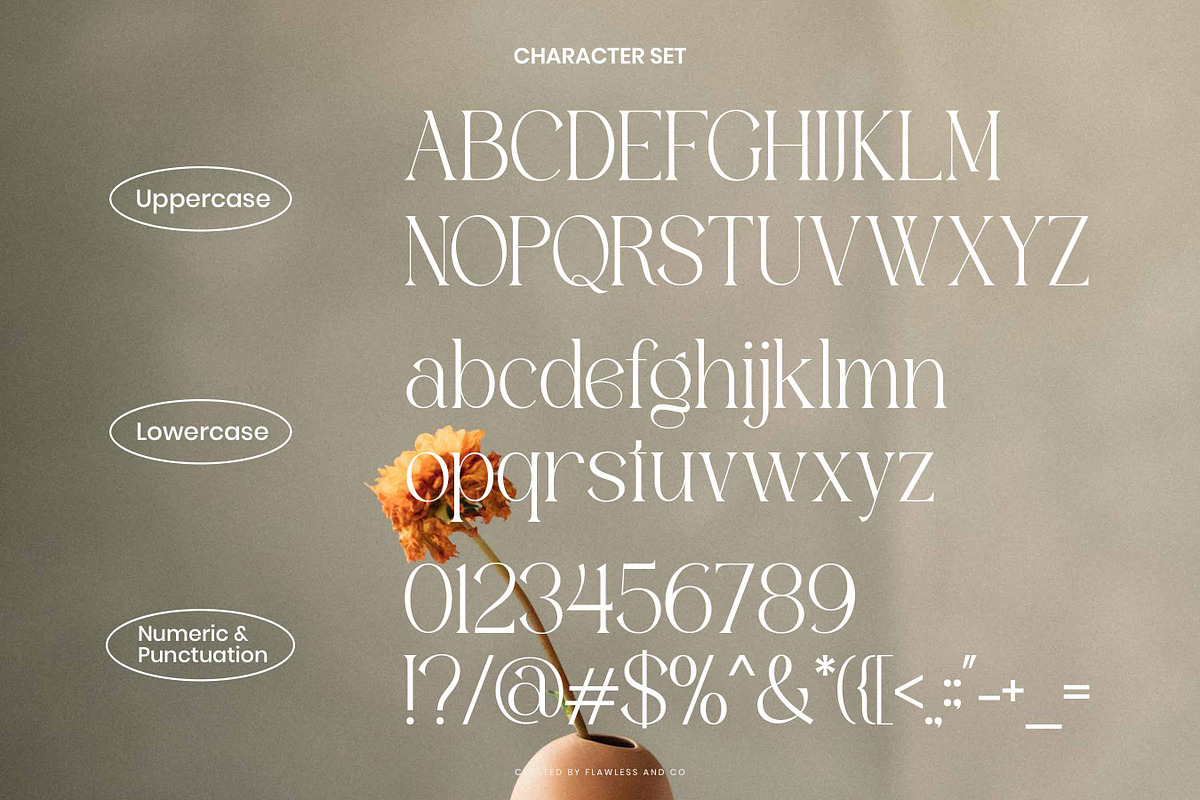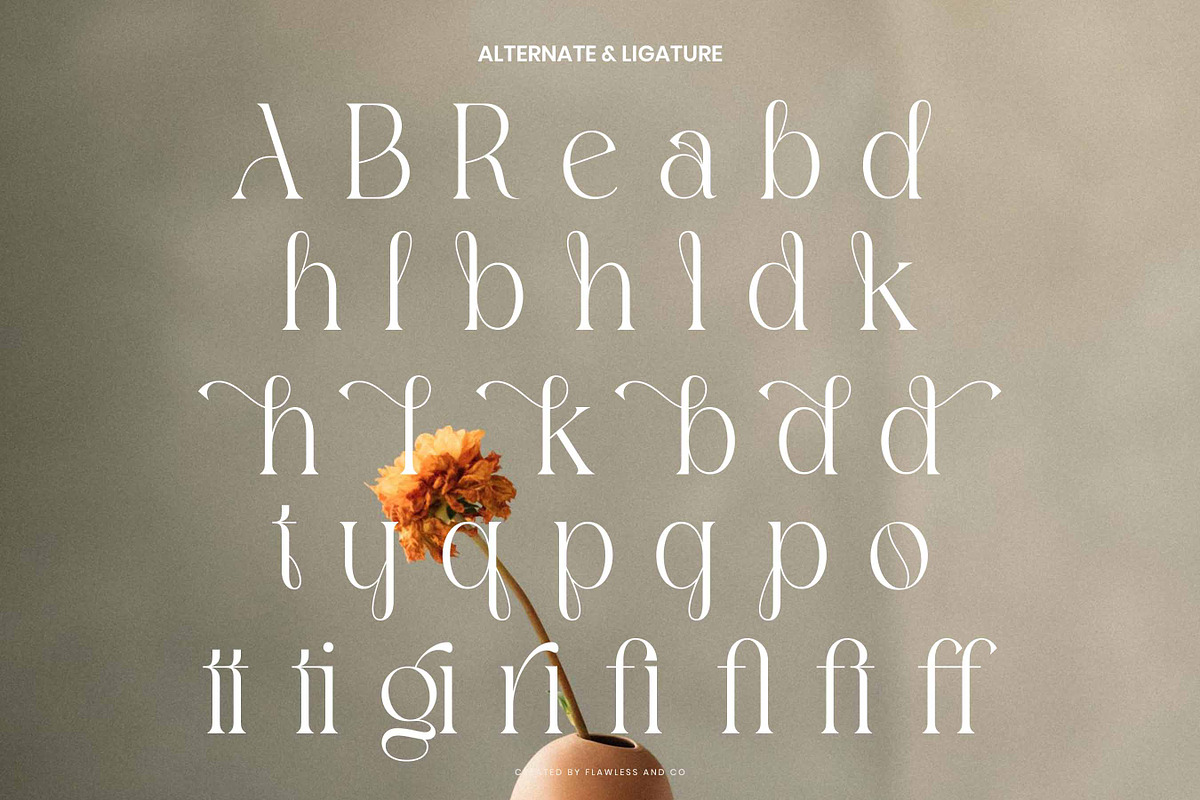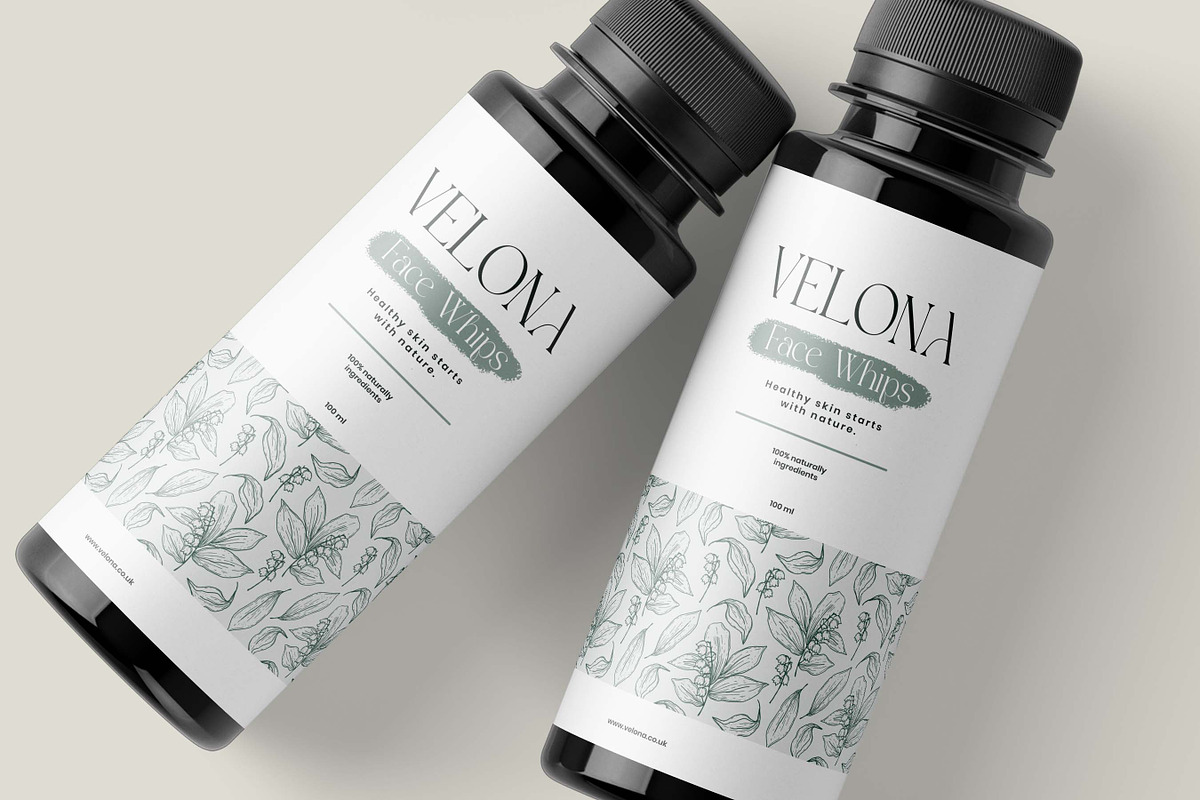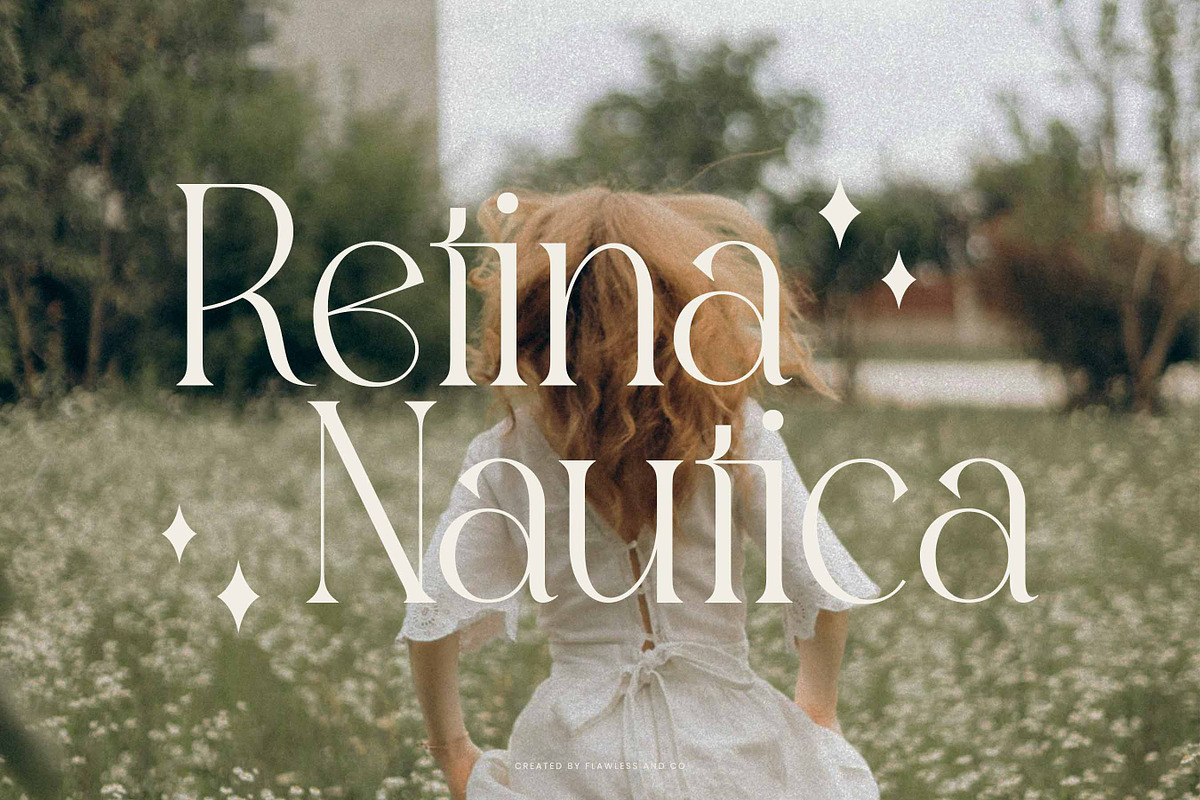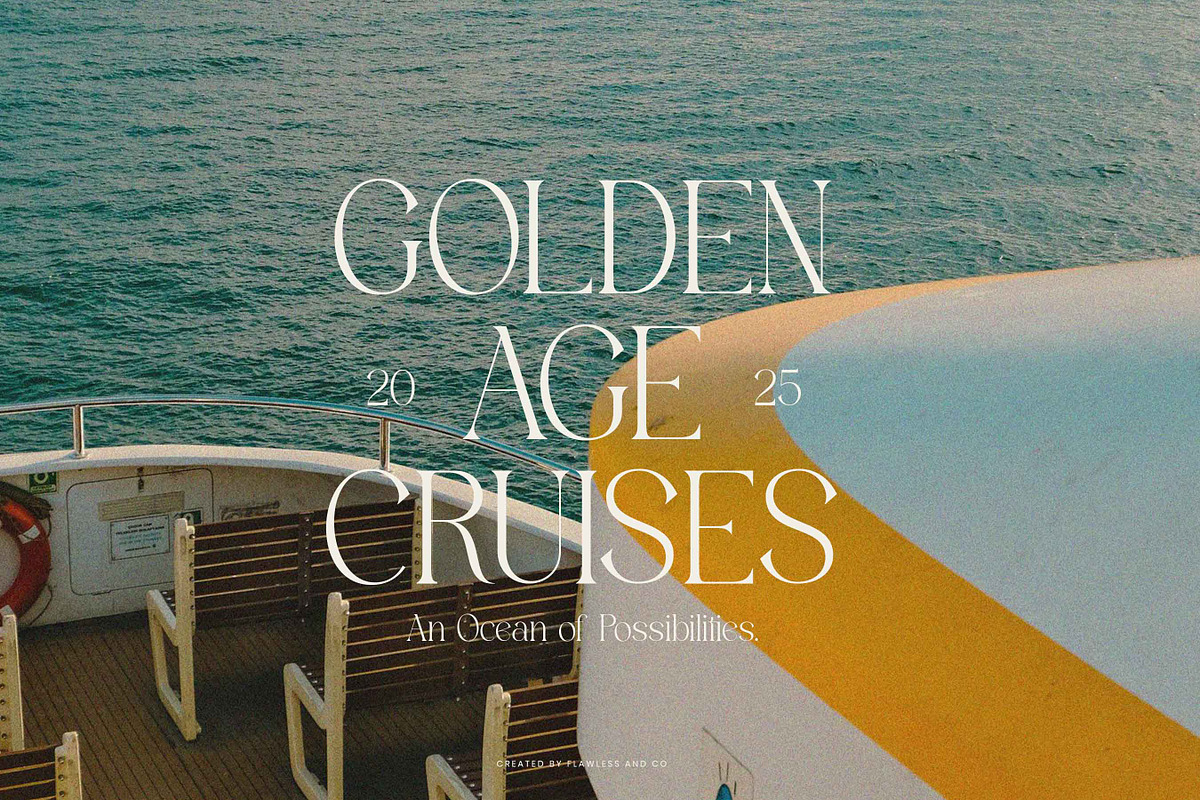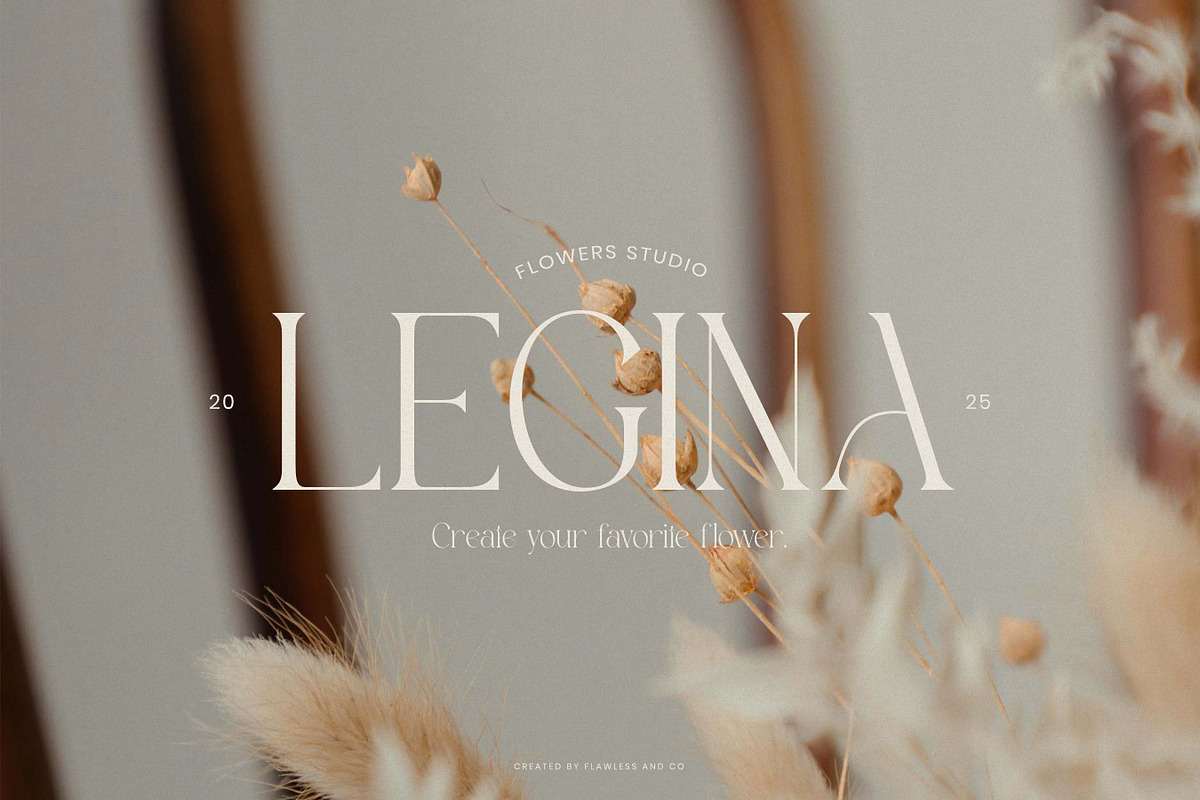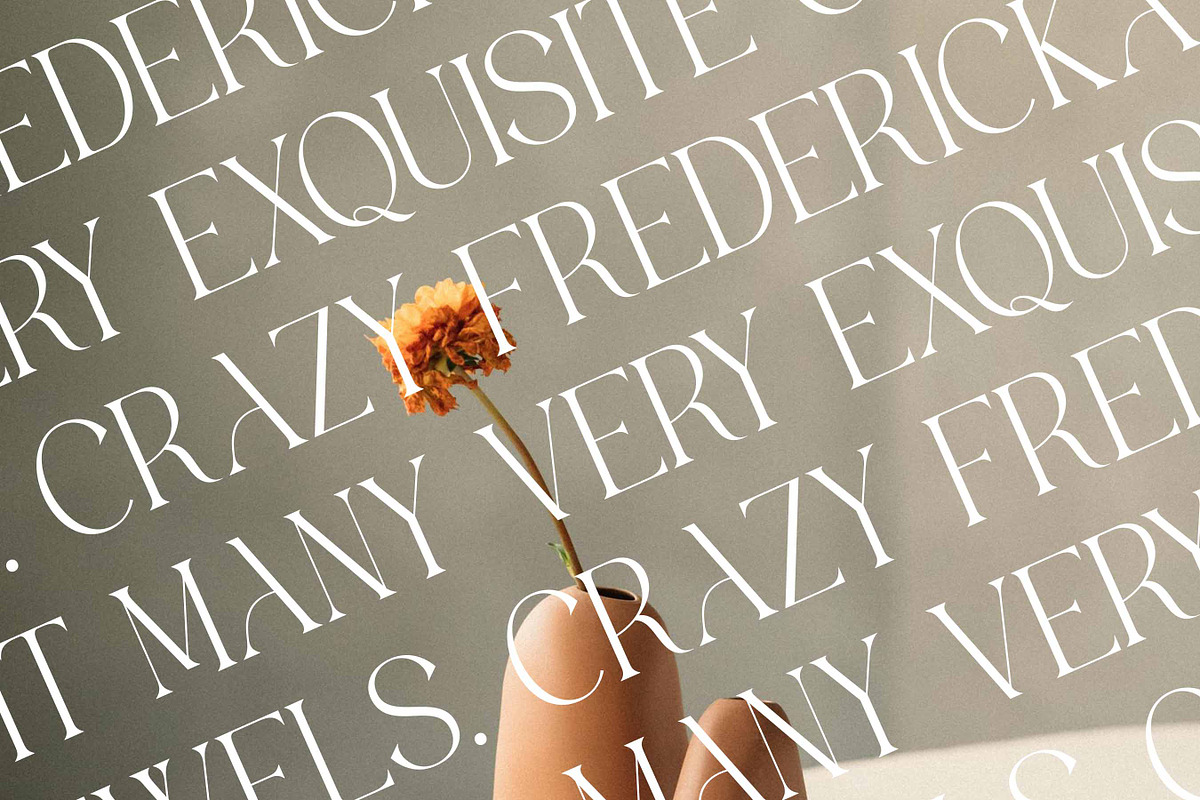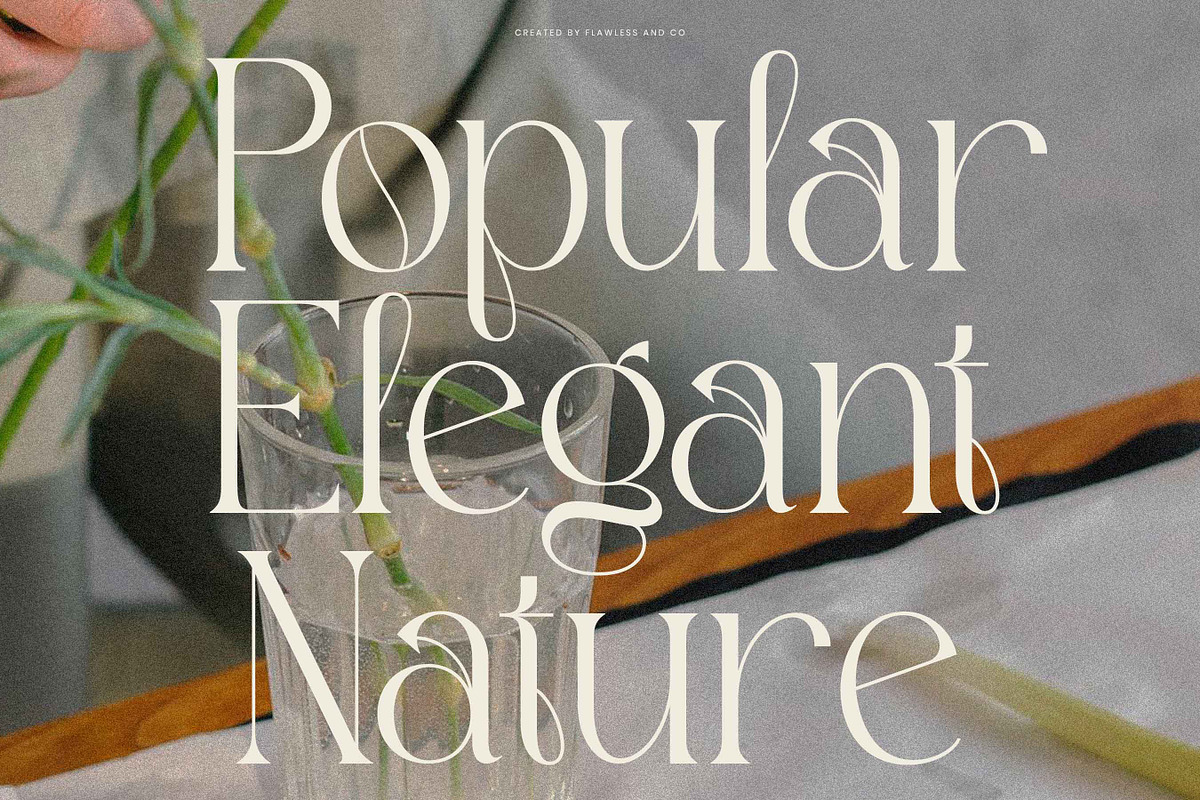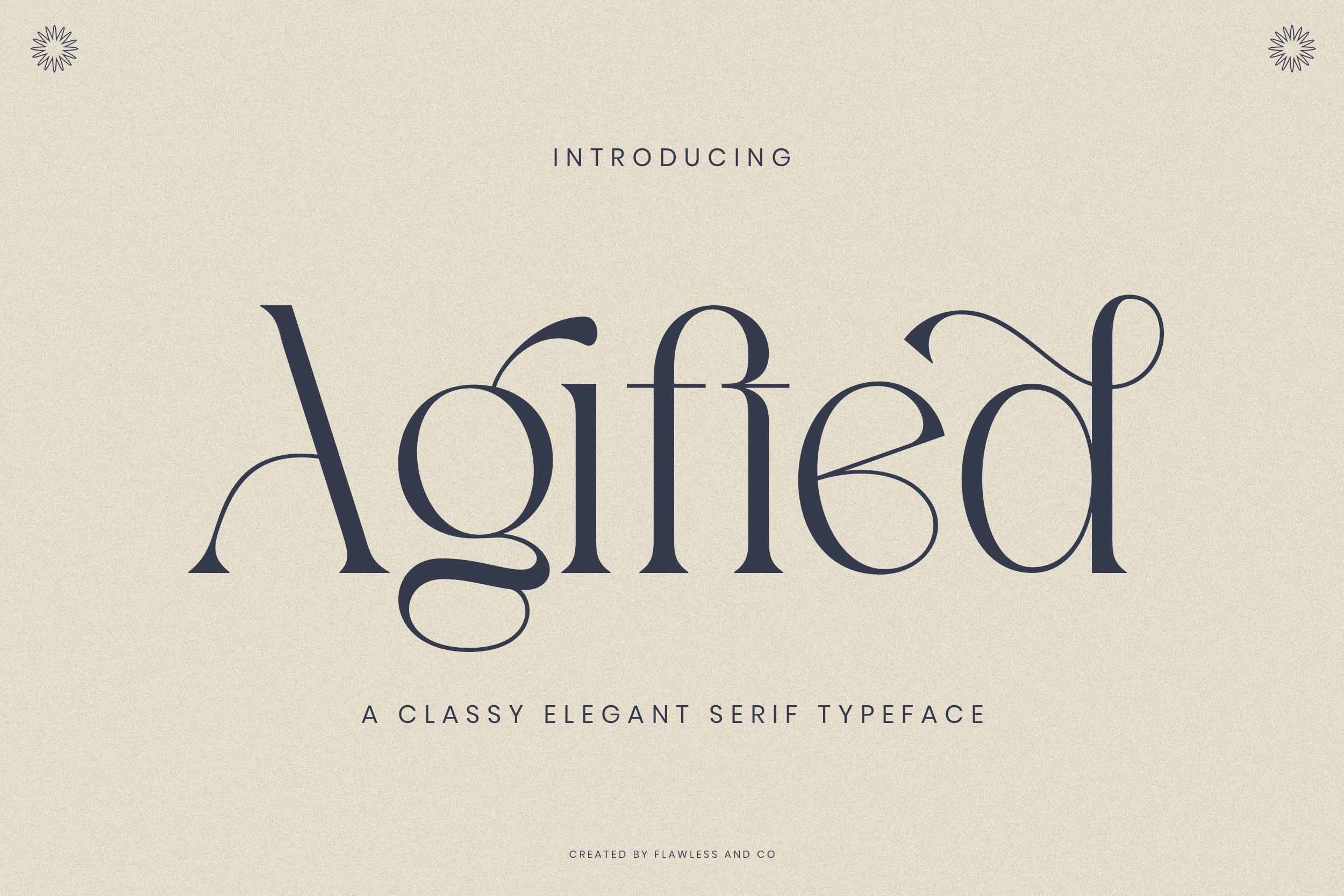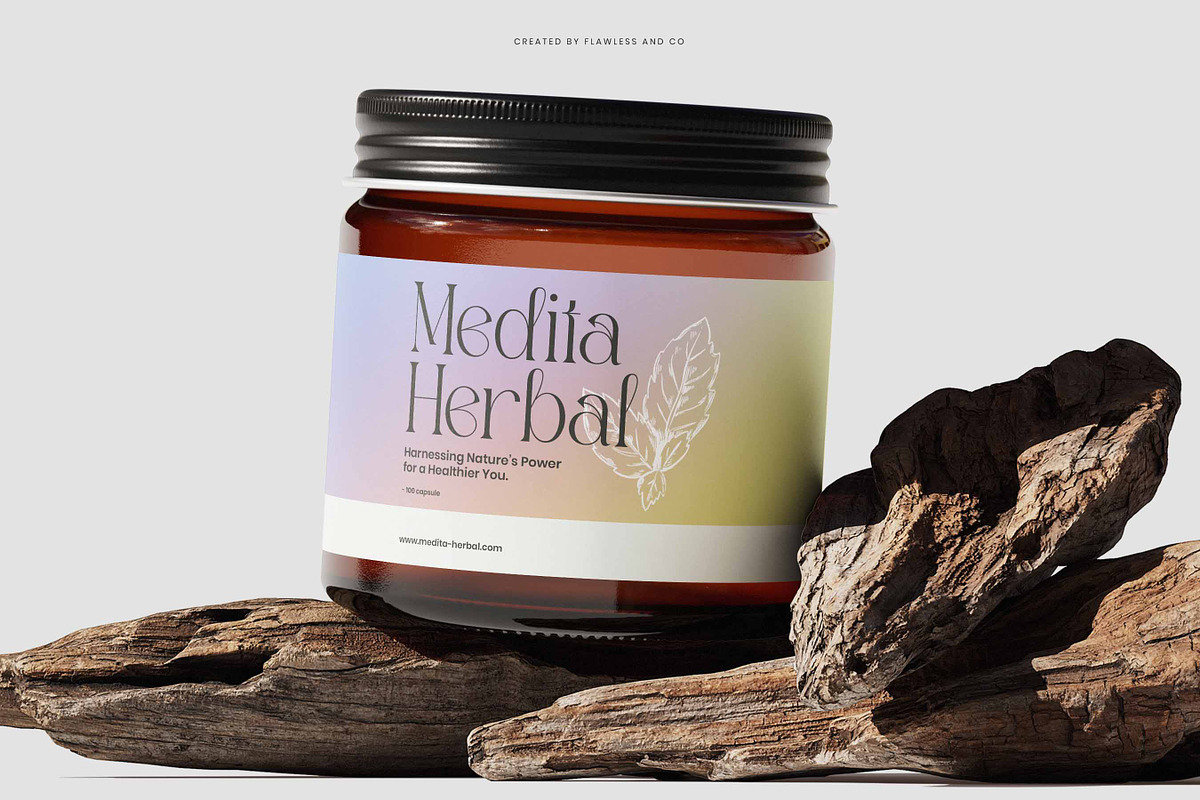
Agifted - Elegant Serif Font
Agifted is a classy and elegant serif font that brings a sophisticated charm to any design. With graceful curves and timeless letterforms, this font is perfect for high-end branding, editorial layouts, wedding invitations, fashion magazines, and luxury packaging. Its sophisticated aesthetic makes it ideal for projects that require a luxurious and sophisticated look. Let Agifted elevate your typography with elegance and style.